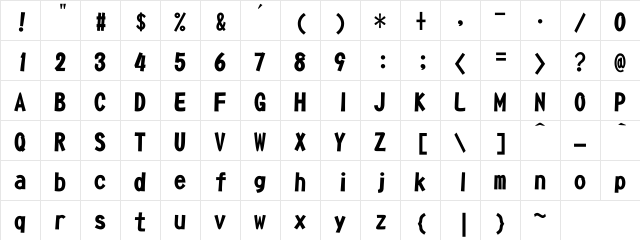
DFPOP1W9U-B5 Regular
Design Context for DFPOP1W9U-B5 Typeface
DFPOP1W9U-B5 is a composed and adaptable typeface that performs quietly and consistently across a wide range of design contexts.